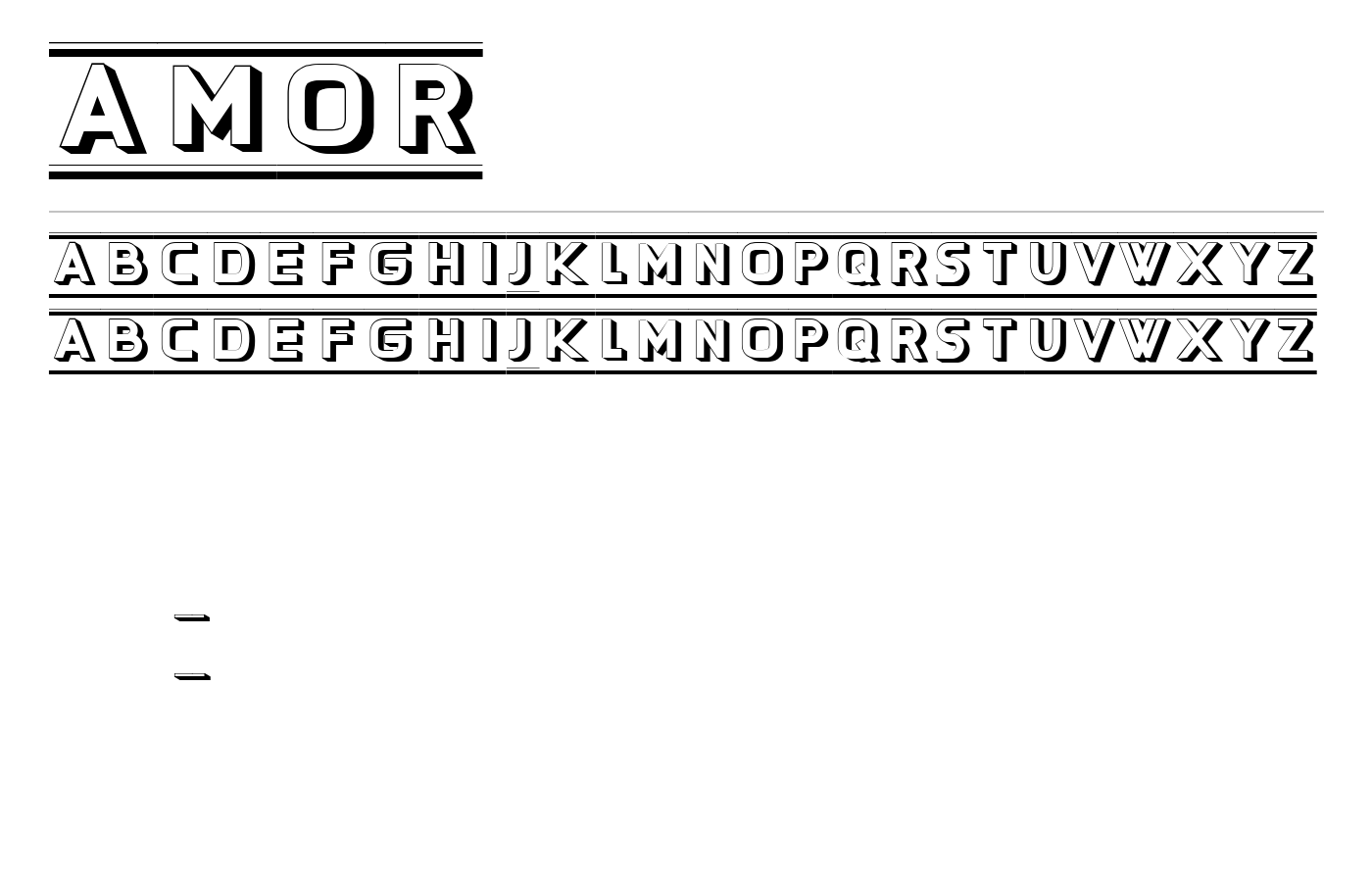
Amor Font is a bold, uppercase sans serif typeface with a vintage-inspired style that features strong geometric shapes and a distinctive three-dimensional shadow effect. Its clean, sturdy letterforms combined with the layered shading give it a playful yet solid personality, making it ideal for eye-catching headlines, logos, and retro-themed designs. This font works well where a bold, confident impact is needed, especially in branding and display settings.
Amor Font
About Amor Font